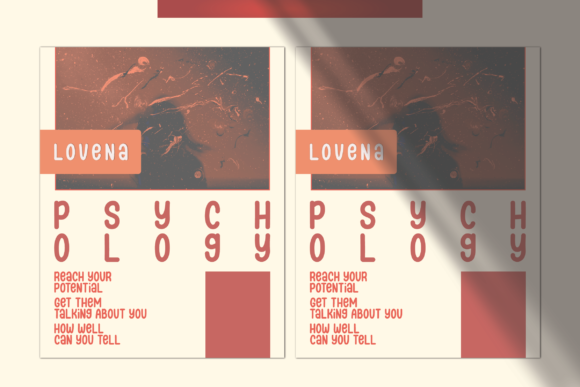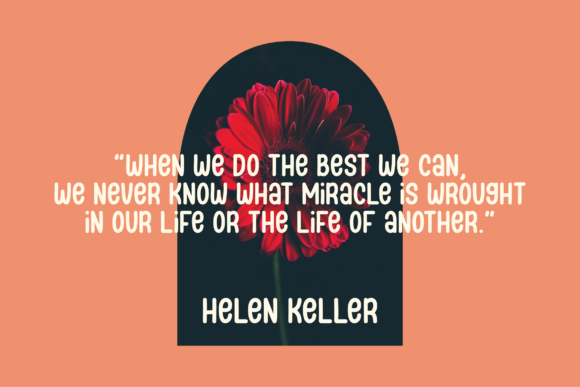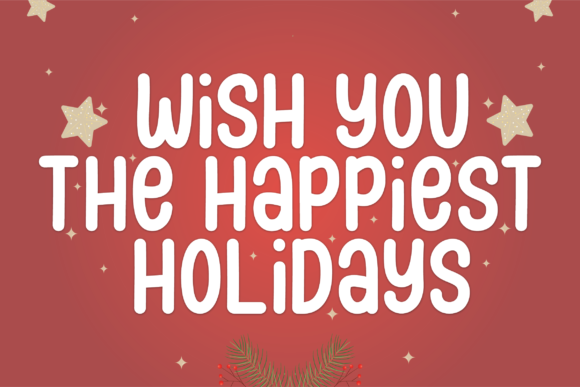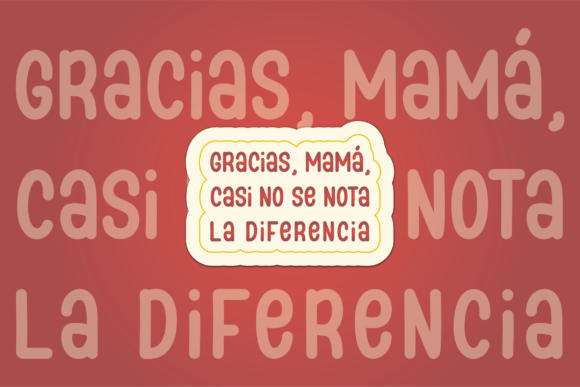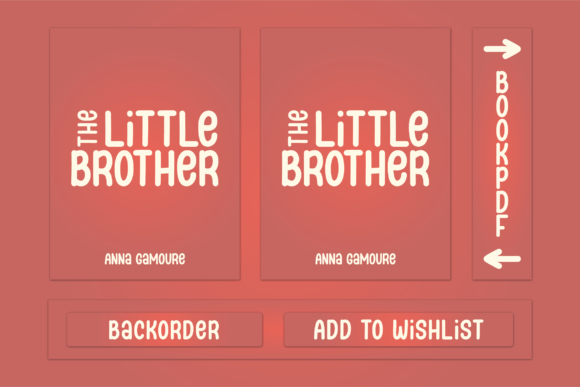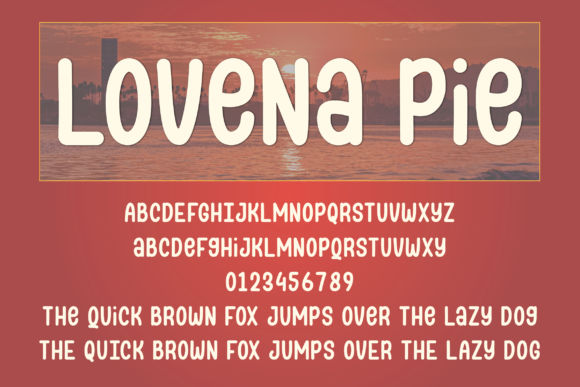
Introduction to Lovena Pie Font
Lovena Pie is a fun and friendly handwritten font.
Whether you are using it for cartoon-related designs, children games, quotes, titles, brand names, book covers, posters, or just any creation that requires a touch of joy, this font is a great choice .
Key Features of Lovena Pie Font
Why Choose Lovena Pie Font?
Lovena Pie Font offers exceptional quality and versatility, making it a valuable addition to your design toolkit. Whether you’re creating for personal projects or commercial use, Lovena Pie Font delivers professional results.